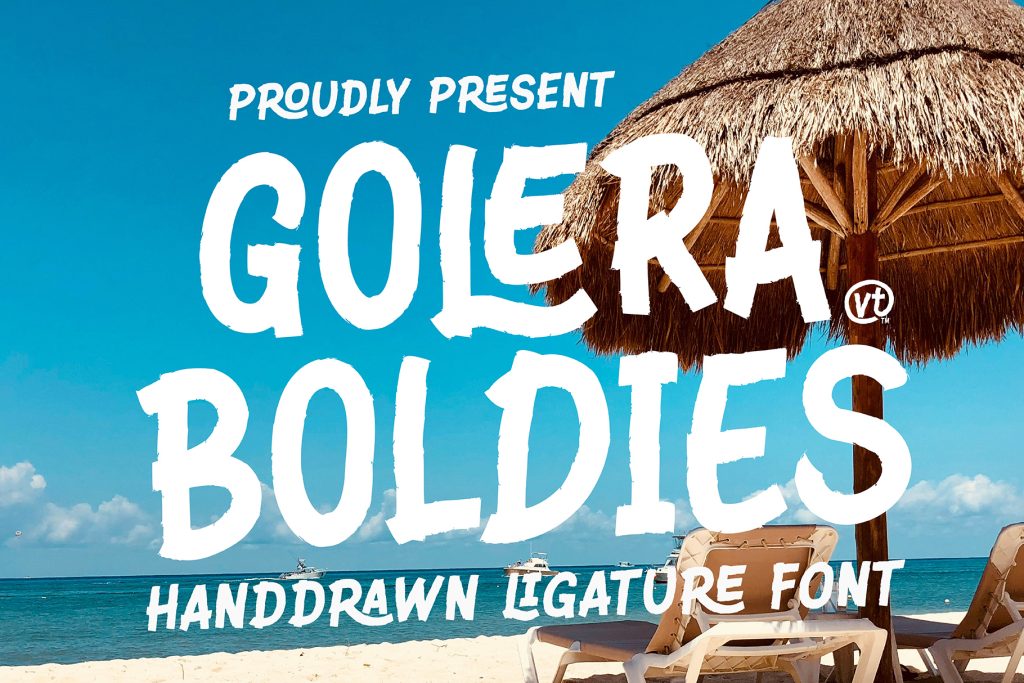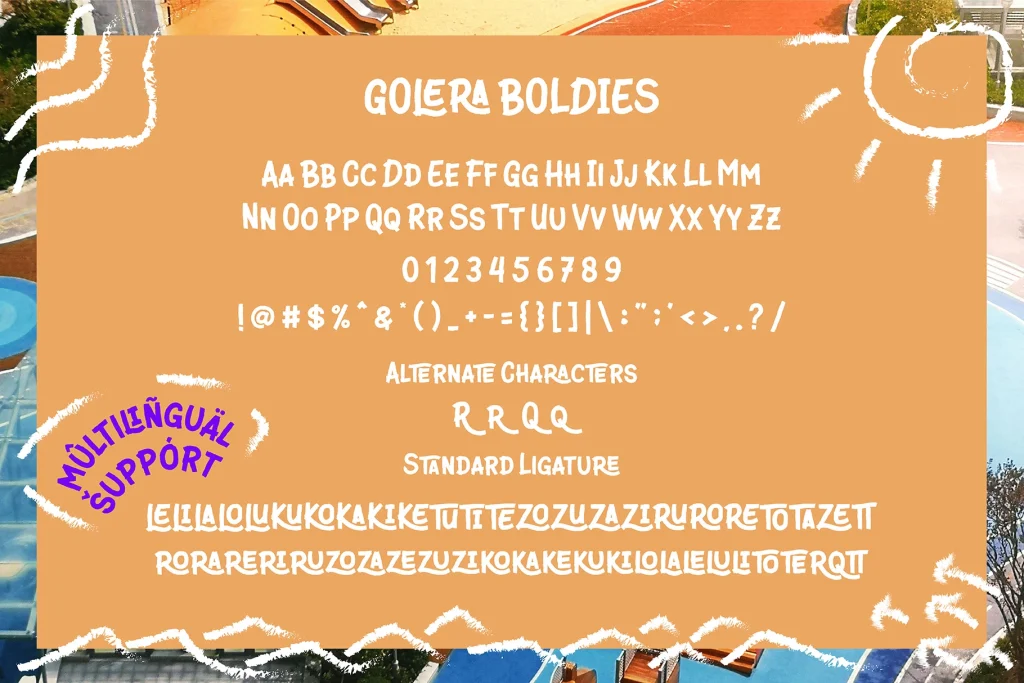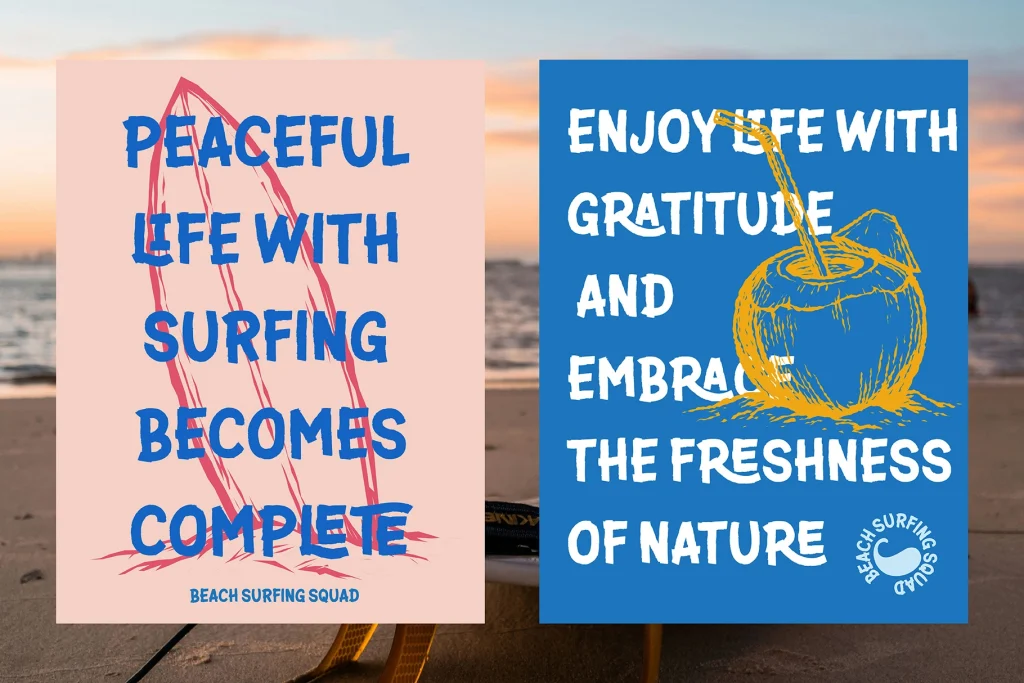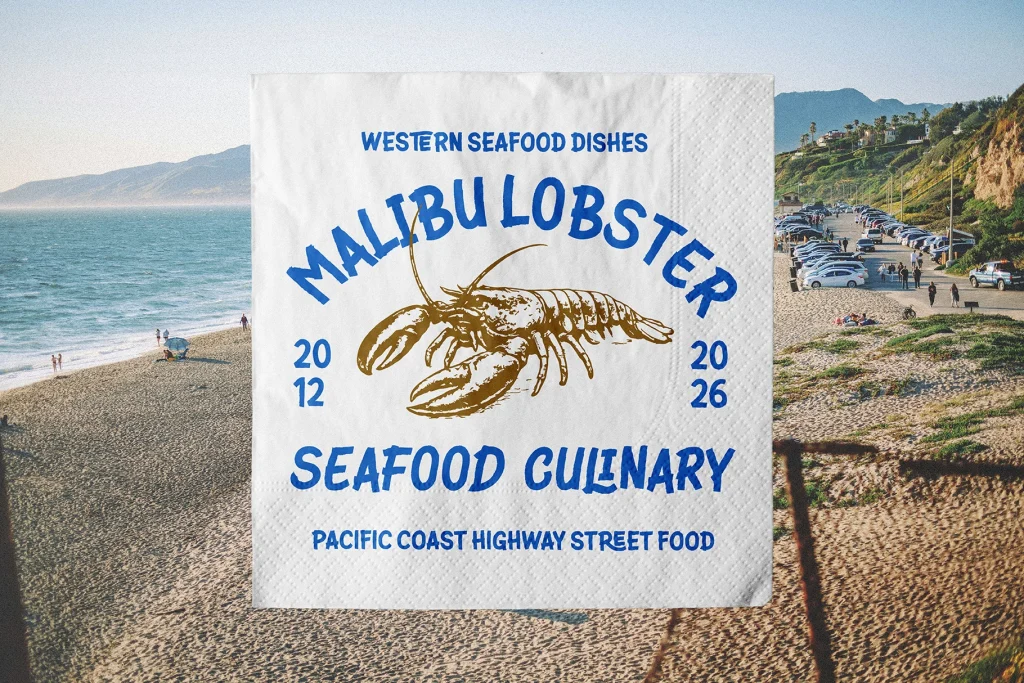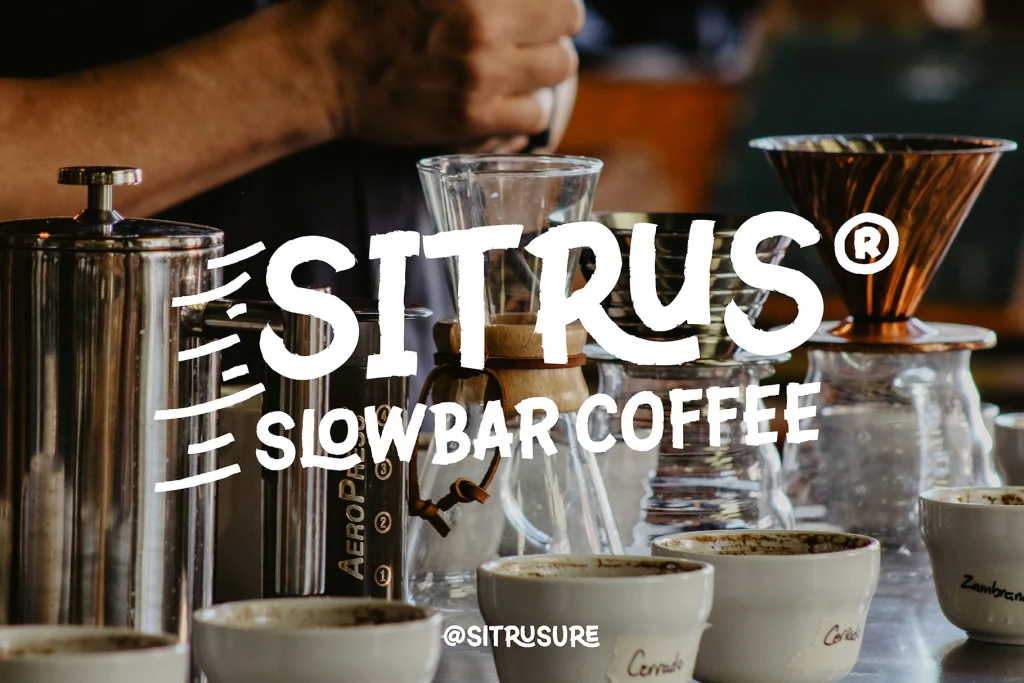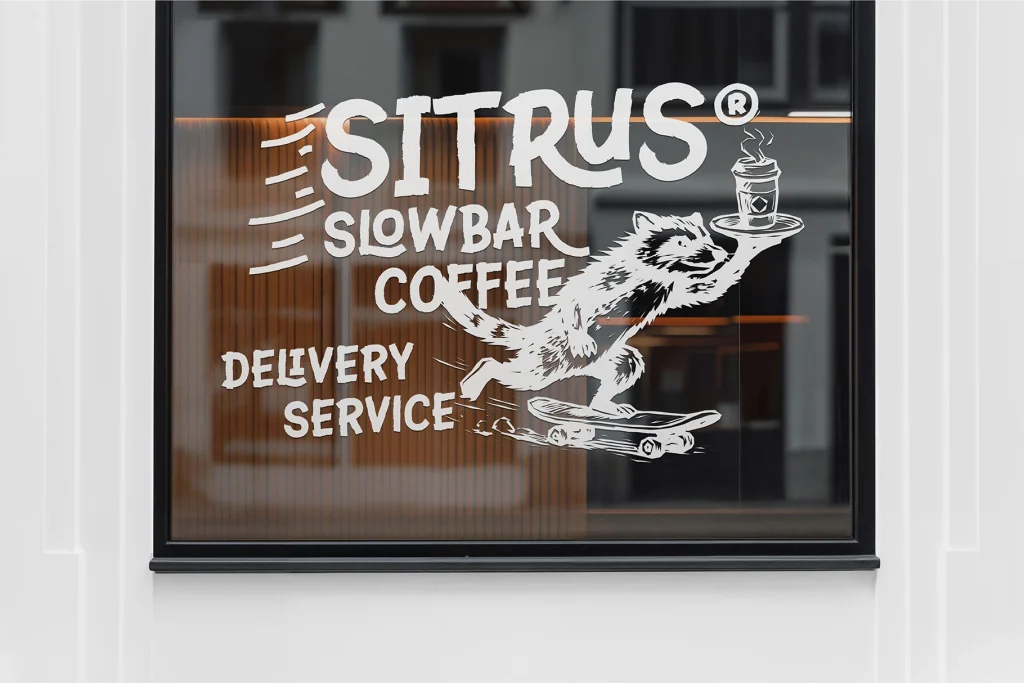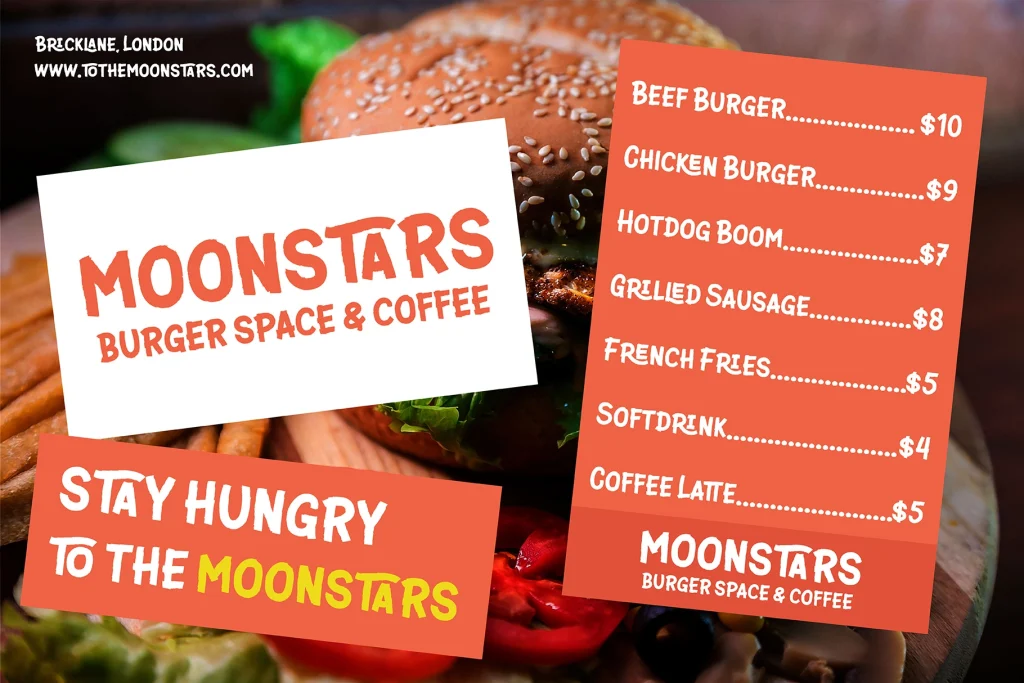
Golera Boldies is a bold hand-drawn sans serif font with brush-style strokes, rich ligatures, and alternates. Perfect for branding, posters, logos, and creative display typography.
A Font That Feels Alive and Expressive
If you’re looking for a font that instantly grabs attention, Golera Boldies delivers with its bold, hand-drawn sans serif style. Inspired by real brush strokes, this font features strong, slightly rough edges that give it an energetic and organic personalityโjust like handwritten lettering done with confidence.
Unlike clean geometric fonts, Golera Boldies embraces imperfection, making it perfect for designs that need a human touch and visual impact.
Bold Brush Style with Natural Texture
The defining characteristic of Golera Boldies is its thick, uneven stroke style, similar to hand-painted or brush lettering. Each letter feels handcrafted, with subtle variations that create a lively and authentic look.
This makes it especially effective for:
- Headlines
- Posters
- Branding visuals
- Beach, summer, and lifestyle themes
Rich Ligatures for Smooth, Stylish Typography
Beyond its bold appearance, Golera Boldies includes extensive ligatures that automatically enhance letter combinations.
These ligatures:
- Improve visual flow
- Add stylistic flair
- Make typography feel more custom and premium
The result is text that looks naturally connected and aesthetically balanced, even in large display sizes.
Creative Alternates for Unique Designs
To support creative flexibility, Golera Boldies comes with a variety of alternate characters. These allow you to:
- Customize word shapes
- Avoid repetitive letterforms
- Create unique branding compositions
Perfect for designers who want their typography to feel distinct and original.
Two Essential Styles
Golera Boldies includes:
- Regular
Strong, bold, and highly readableโideal for main text and headlines - Oblique
Slightly slanted for added motion and dynamic energy
Together, they help you create hierarchy and contrast in your designs.
Perfect for Bold & Playful Design Projects
With its expressive style, Golera Boldies works best for:
- Beach & summer branding
- Cafe & beverage packaging
- Poster and headline design
- Social media graphics
- Logo design
- Merchandise & apparel
Its bold presence ensures your message stands out instantly.
Why Choose Golera Boldies?
Because sometimes, clean isnโt enough.
Golera Boldies gives you:
- A bold, eye-catching look
- Authentic hand-drawn character
- Rich ligatures for better flow
- Flexible alternates for creativity
- A strong visual identity for modern brands
Make Your Typography Stand Out
If you want typography that feels fun, bold, and full of personality, Golera Boldies is your go-to font. Itโs designed to make an impactโperfect for designers who want to break away from boring, generic typefaces.